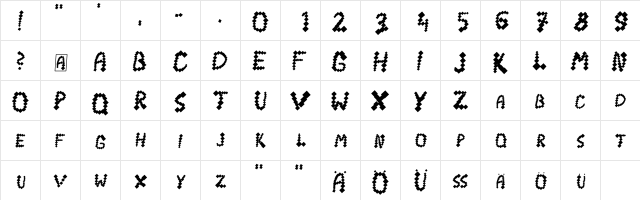
CaroMio Regular
Design Context for CaroMio Typeface
CaroMio is a composed and adaptable typeface that performs quietly and consistently across a wide range of design contexts.